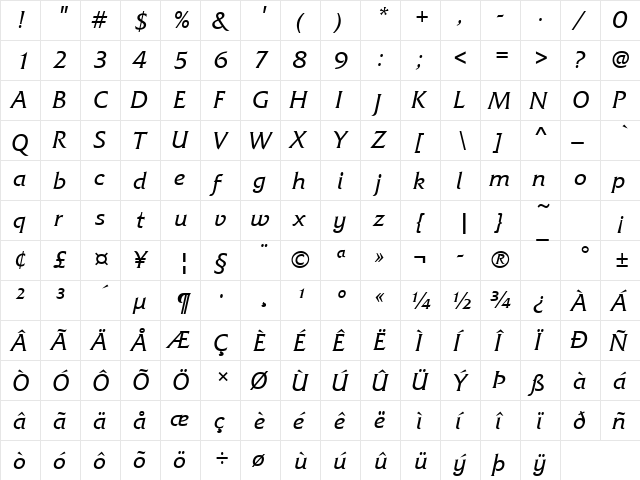
FrizQuaT Italic
Design Context for FrizQuaT Typeface
FrizQuaT takes a measured approach to typography — its balanced proportions and neutral character make it a reliable workhorse for both digital and print work. The dynamic lean of this cut emphasises speed and emphasis in any layout.
Pro Tip: Try FrizQuaT for annotation and caption copy alongside an upright companion — the contrast in angle creates a dynamic but ordered typographic system.